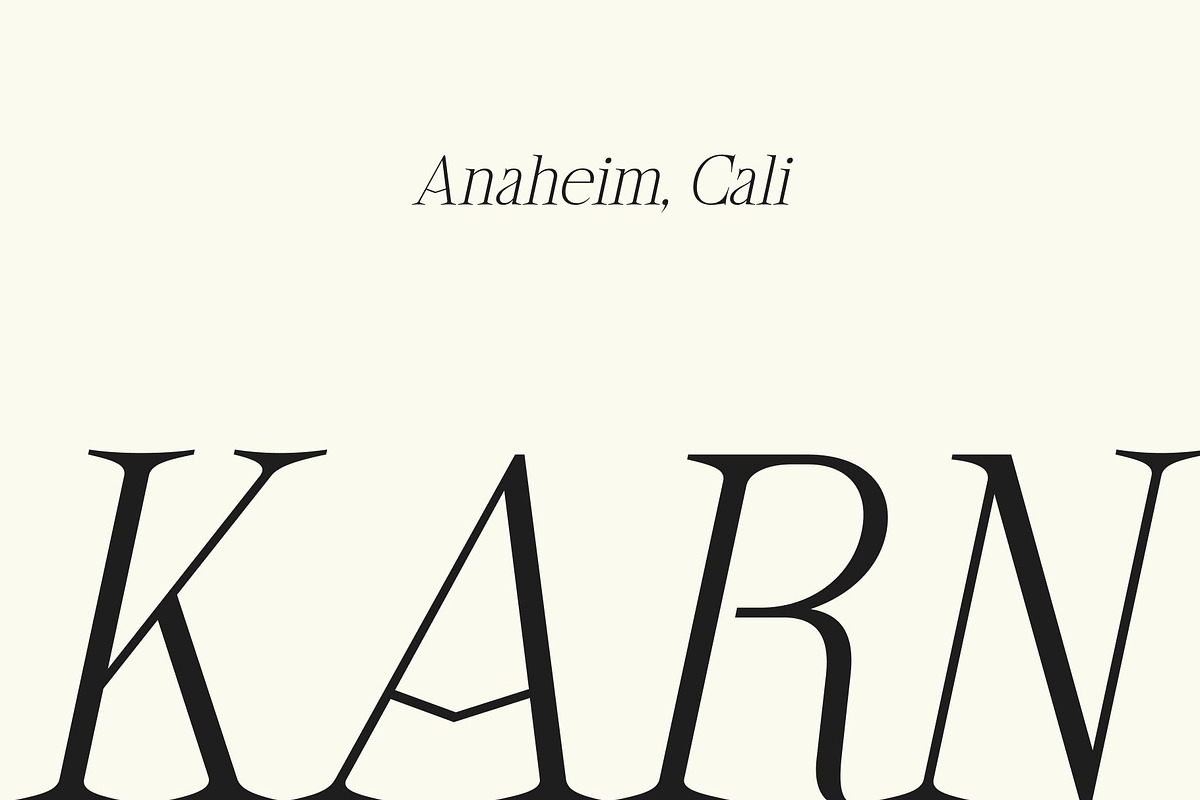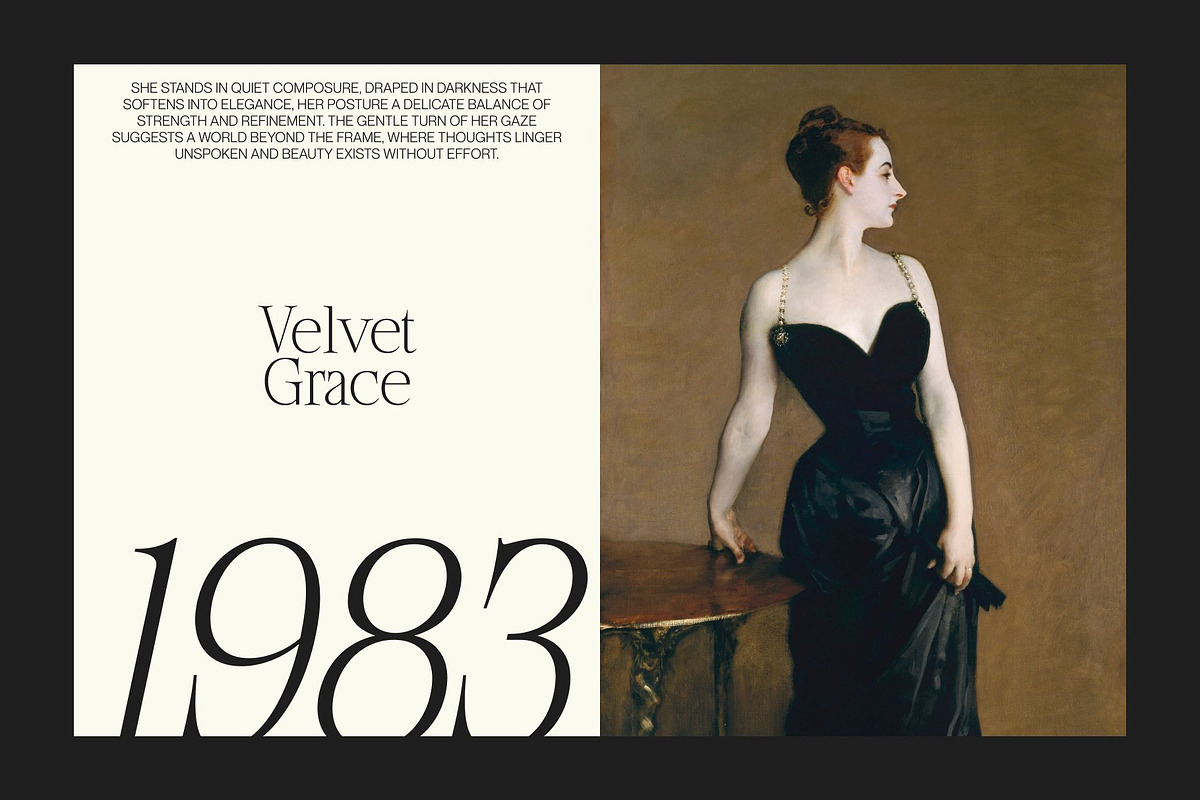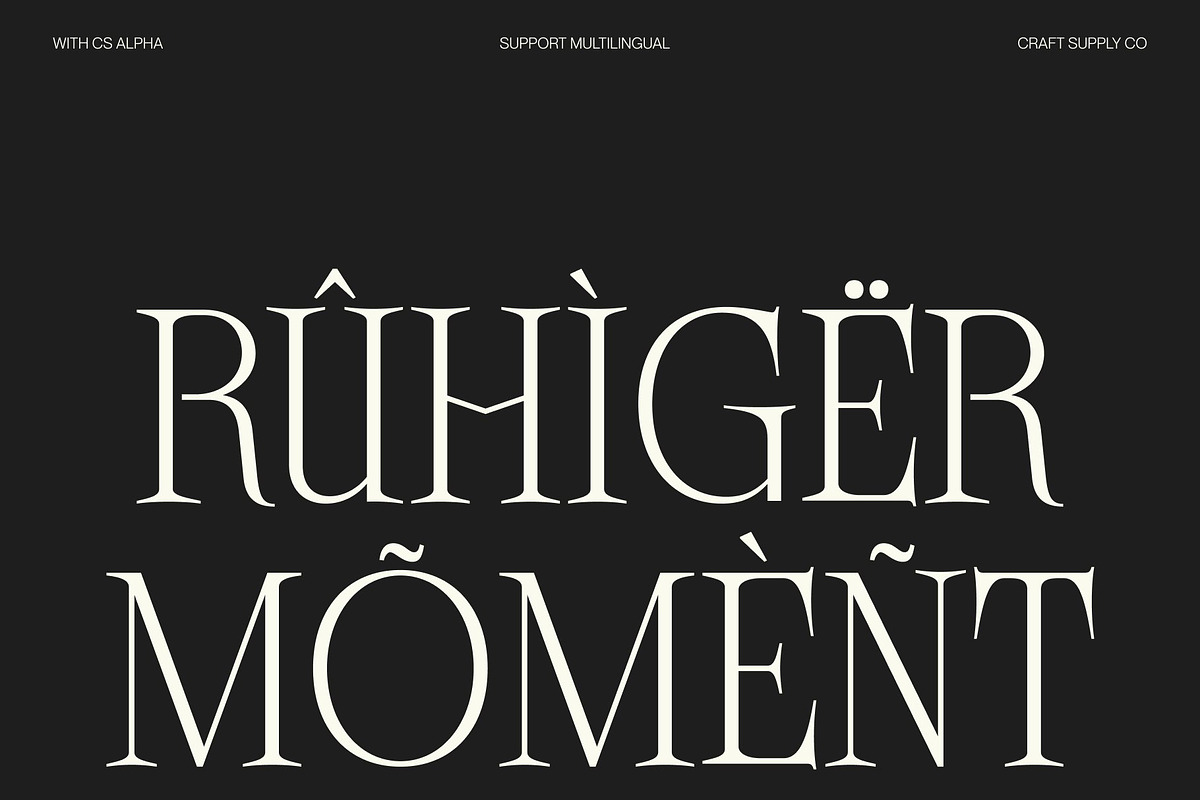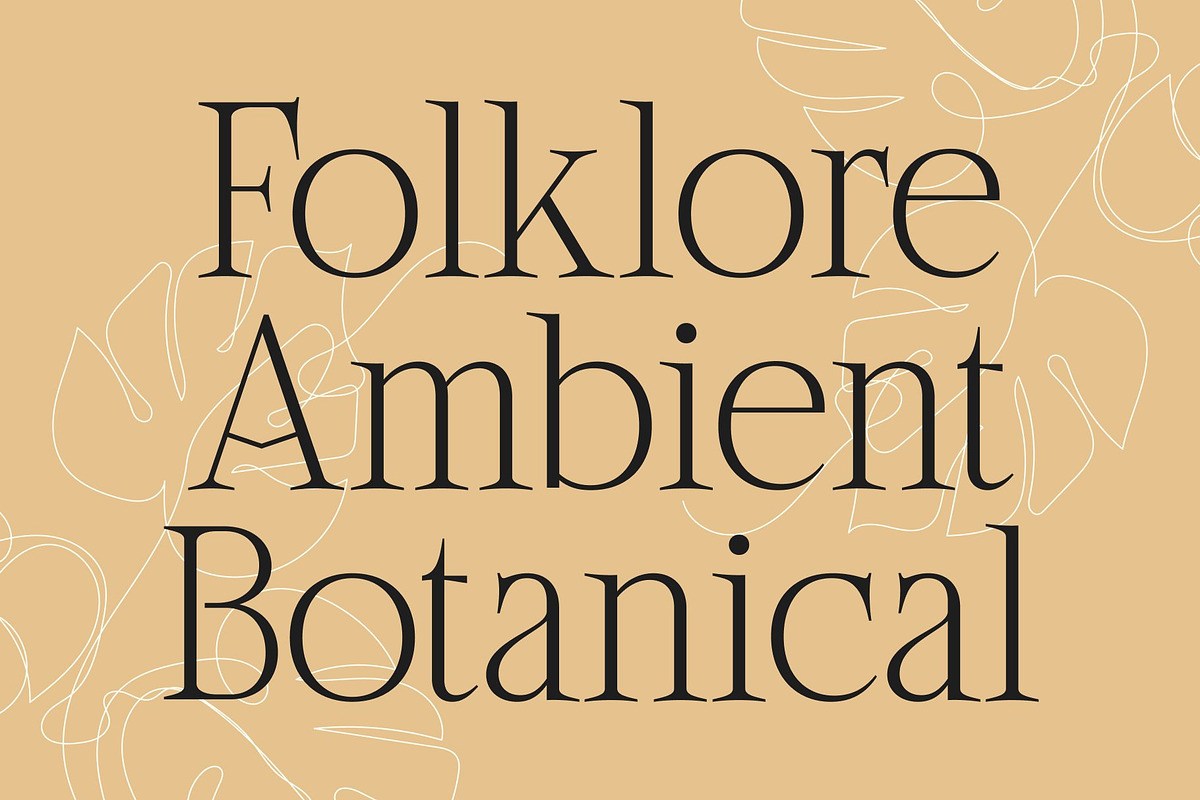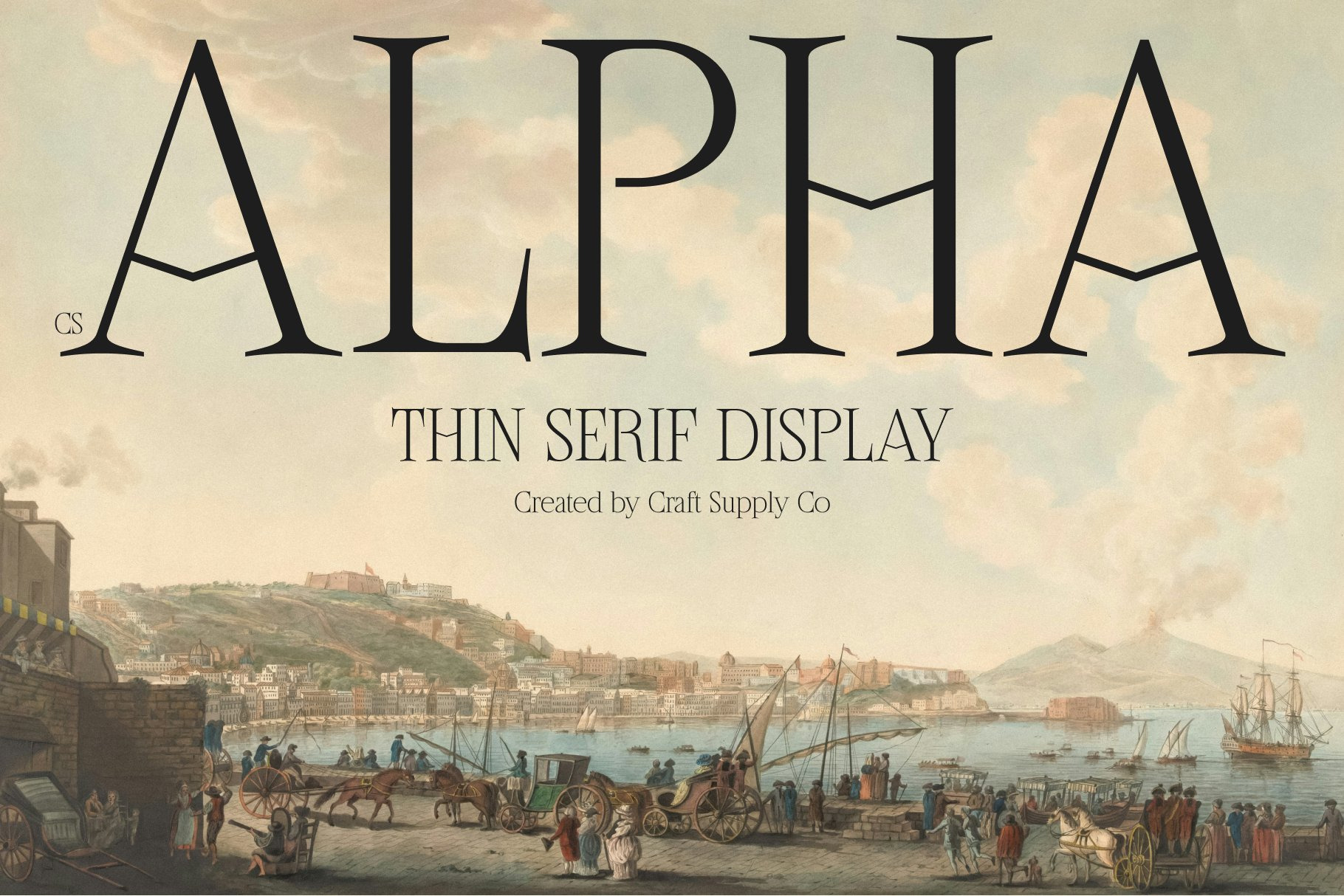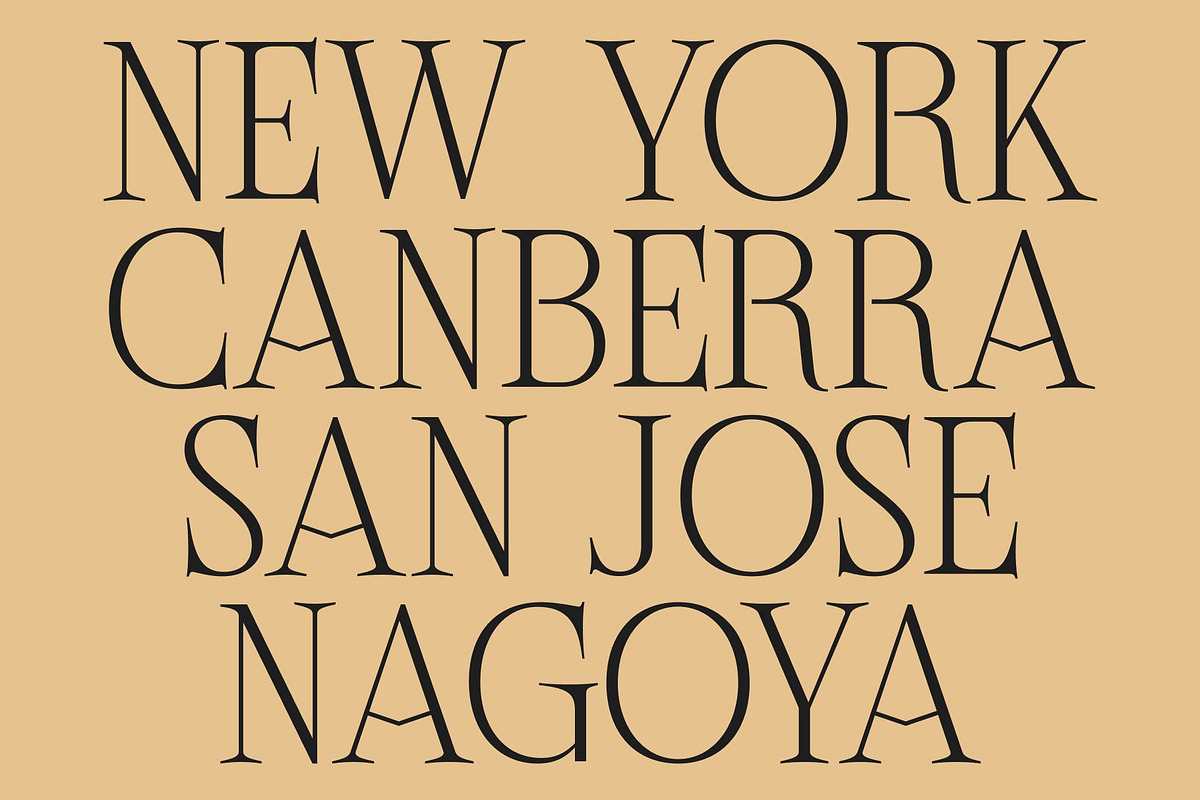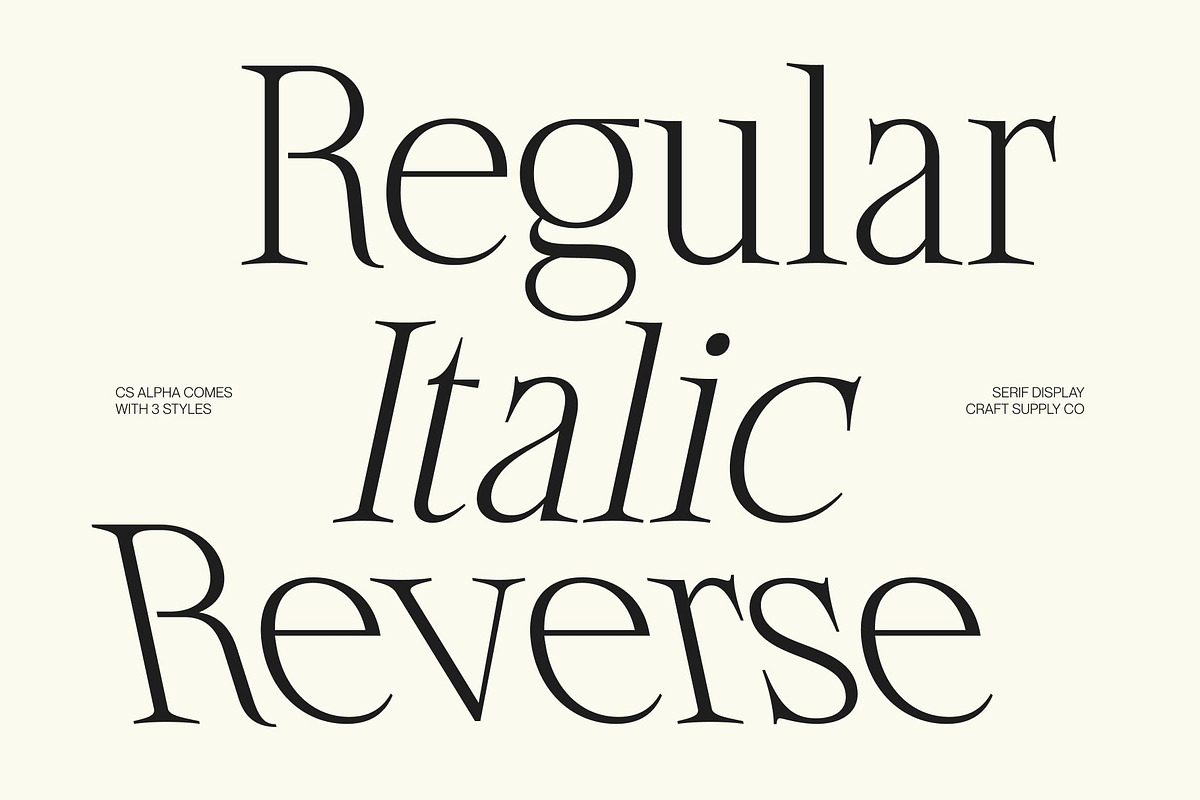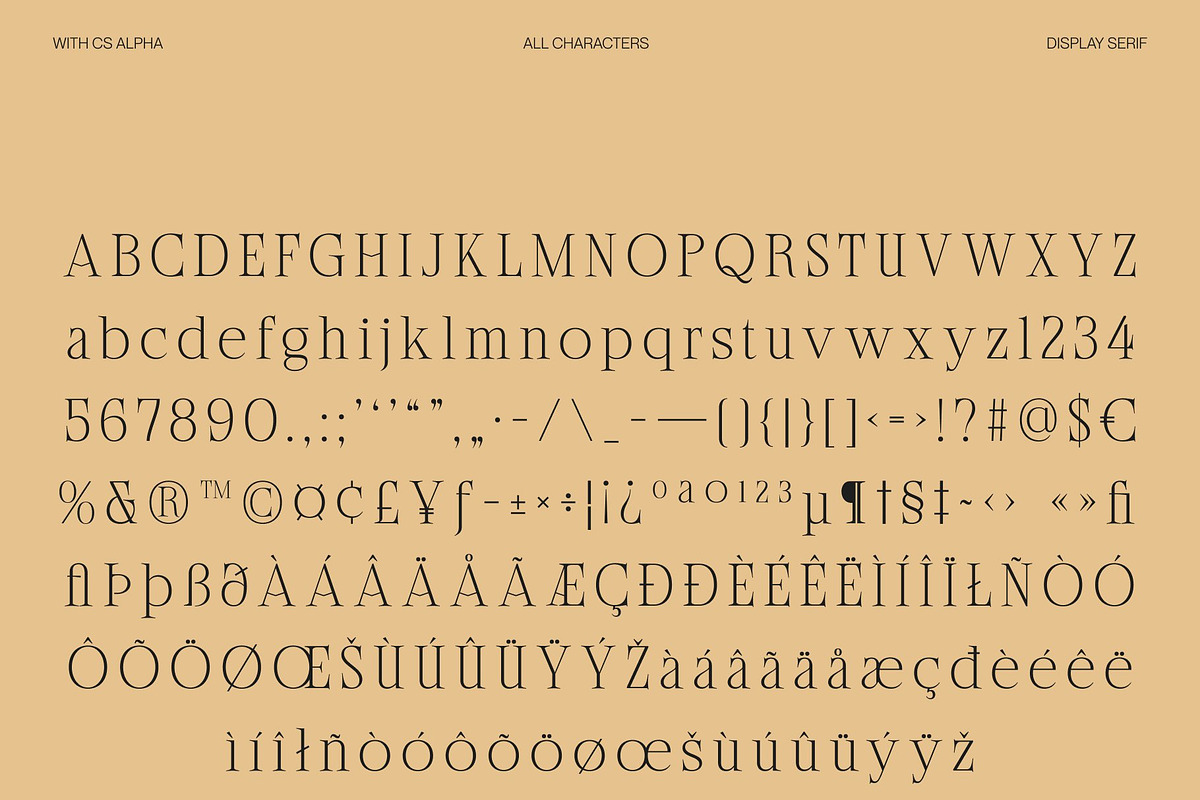
CS Alpha – Classic Serif Font
CS Alpha – Modern Classic Serif with Timeless Elegance
Modern Classic Serif with Refined Sophistication This is a modern classic serif font designed to deliver a perfect balance between timeless elegance and contemporary simplicity. With its thin, clean structure and graceful proportions, this typeface creates a captivating visual presence that feels refined, stylish, and effortlessly modern. It is crafted for designers who want typography that communicates luxury and sophistication.
Crisp Serifs with Contemporary Clarity The font combines crisp classic serif details with a minimalist approach, resulting in letterforms that feel light, polished, and highly readable. Its delicate strokes and refined contrast create a sense of grace and precision, allowing the typography to shine in both large display settings and elegant text compositions.
Elegant Style with Striking Visual Appeal This font offers a sophisticated personality that enhances modern design aesthetics. Its balanced structure allows it to feel both classic and fresh, making it a versatile choice for projects that require a stylish and high-end typographic voice. The result is a font that captures attention while maintaining subtle elegance.
Perfect for Luxury Branding, Editorials, and Creative Projects From luxury branding and fashion editorials to posters and premium packaging, this font provides a versatile typographic solution. Its combination of classic refinement and modern simplicity ensures your designs appear elegant, captivating, and visually striking.
CS Alpha Regular
CS Alpha Italic
CS Alpha Reverse Italic